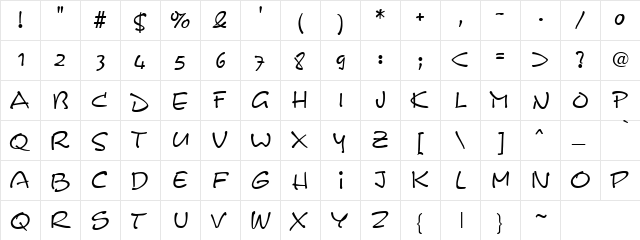
Hypertext Regular
Design Context for Hypertext Typeface
Hypertext is a composed and adaptable typeface that performs quietly and consistently across a wide range of design contexts.